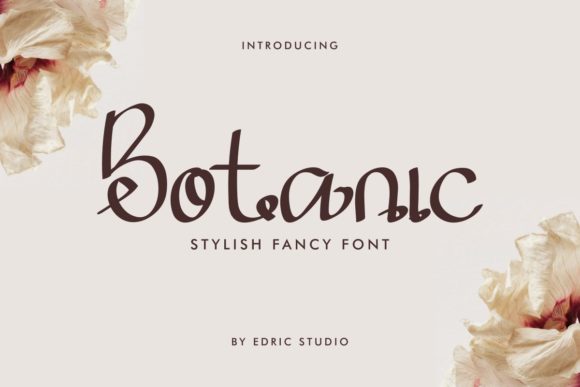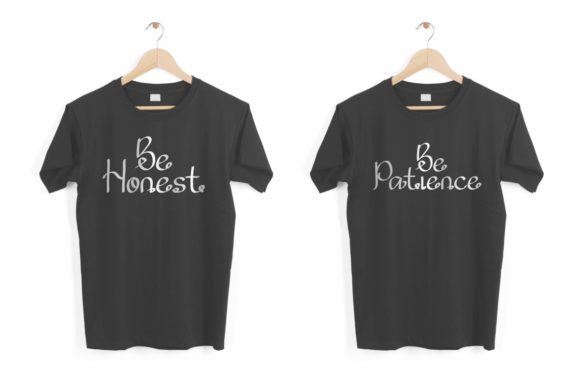
About Botanic Font
Botanic is a whimsical and timeless handwritten font. It is the best choice for creating eye catching logos, branding and quotes. Every letter has a unique and beautiful touch, which will make your design come alive!